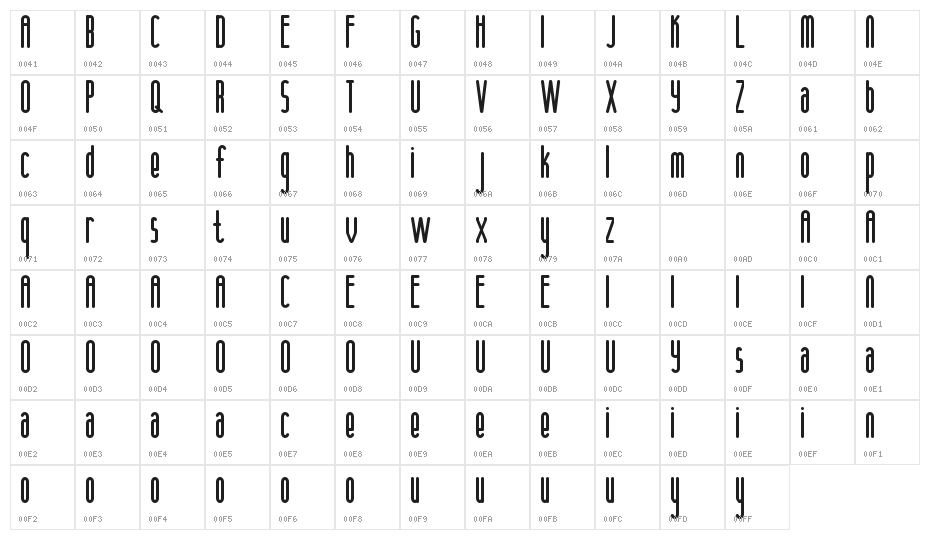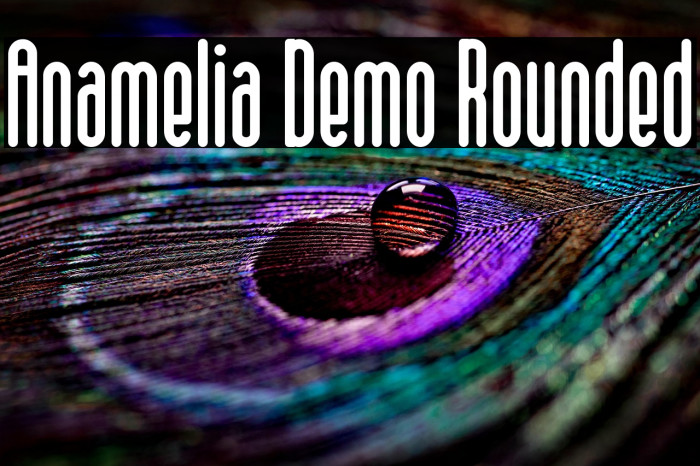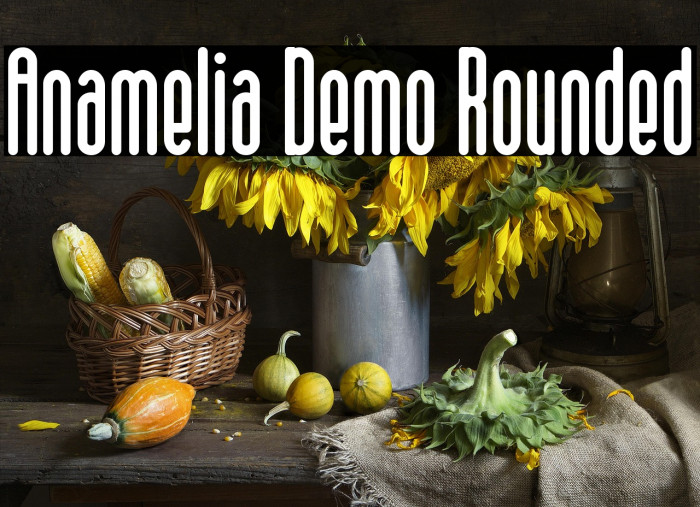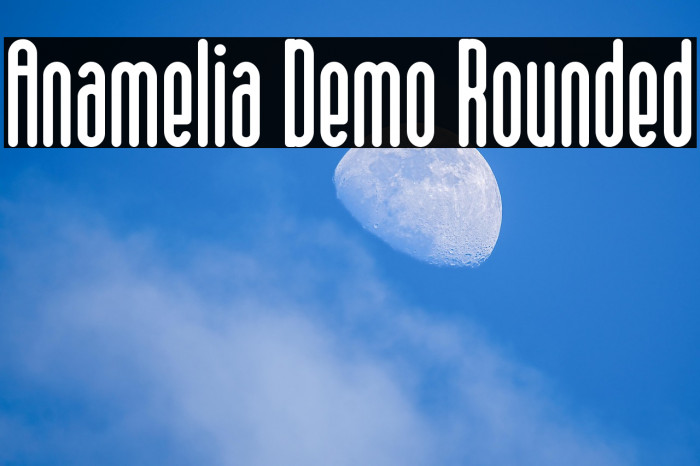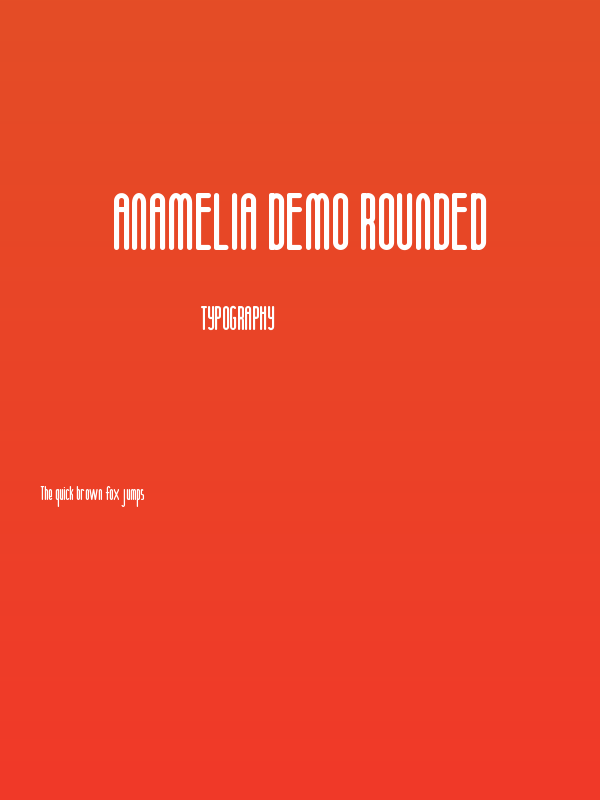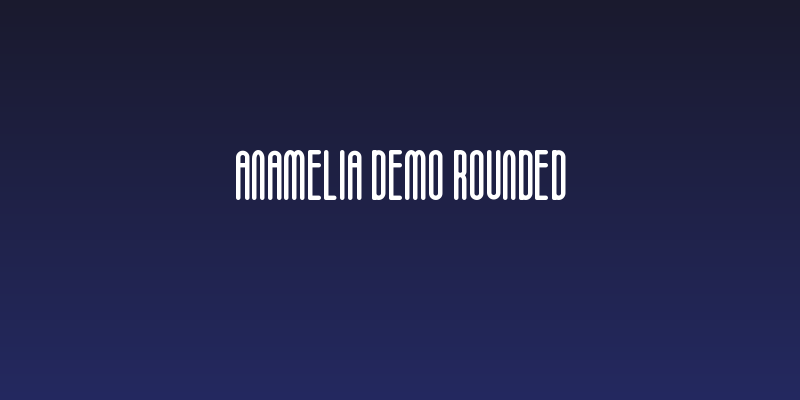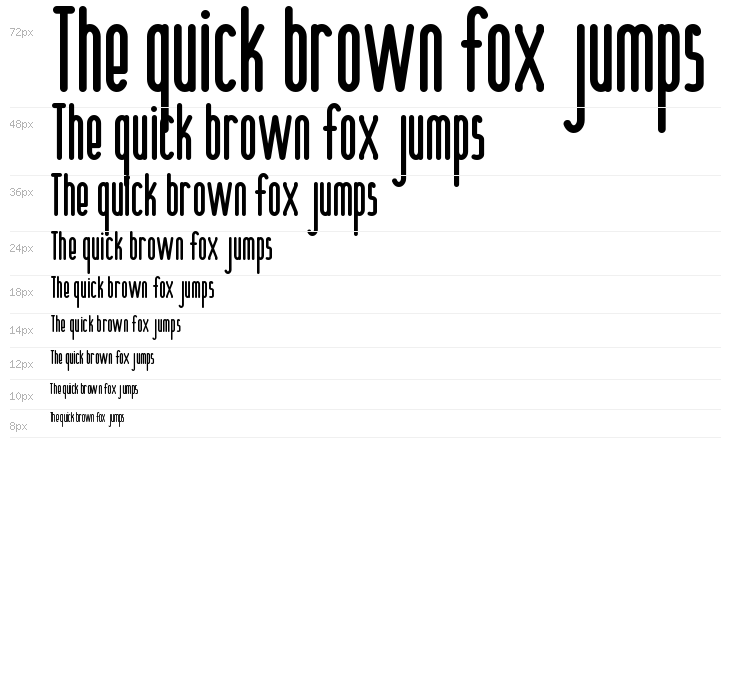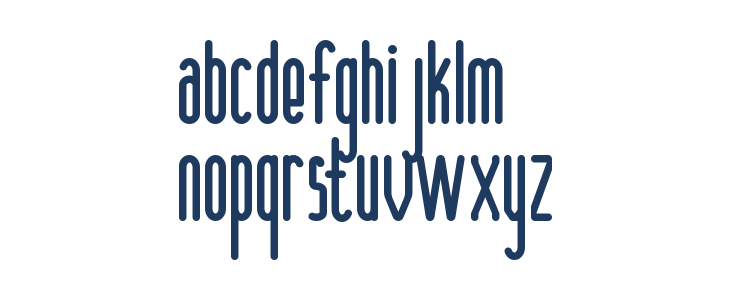
Anamelia Demo Rounded Font
Anamelia Demo Rounded Description
This font features a modern and sleek design with rounded edges, giving it a friendly and approachable appearance. The characters are tall and narrow, creating a condensed look that is both stylish and efficient in space usage. The uniform stroke width across all characters provides a clean and consistent aesthetic, making it suitable for various design applications. The rounded terminals soften the overall look, adding a touch of warmth and personality. This font balances readability with a unique style, making it versatile for both digital and print media.
| Width | Condensed |
| Use Case | Headlines, Logos, Branding |
| Proposed Projects | Ideal for branding, packaging, and editorial design where a modern and approachable look is desired. |